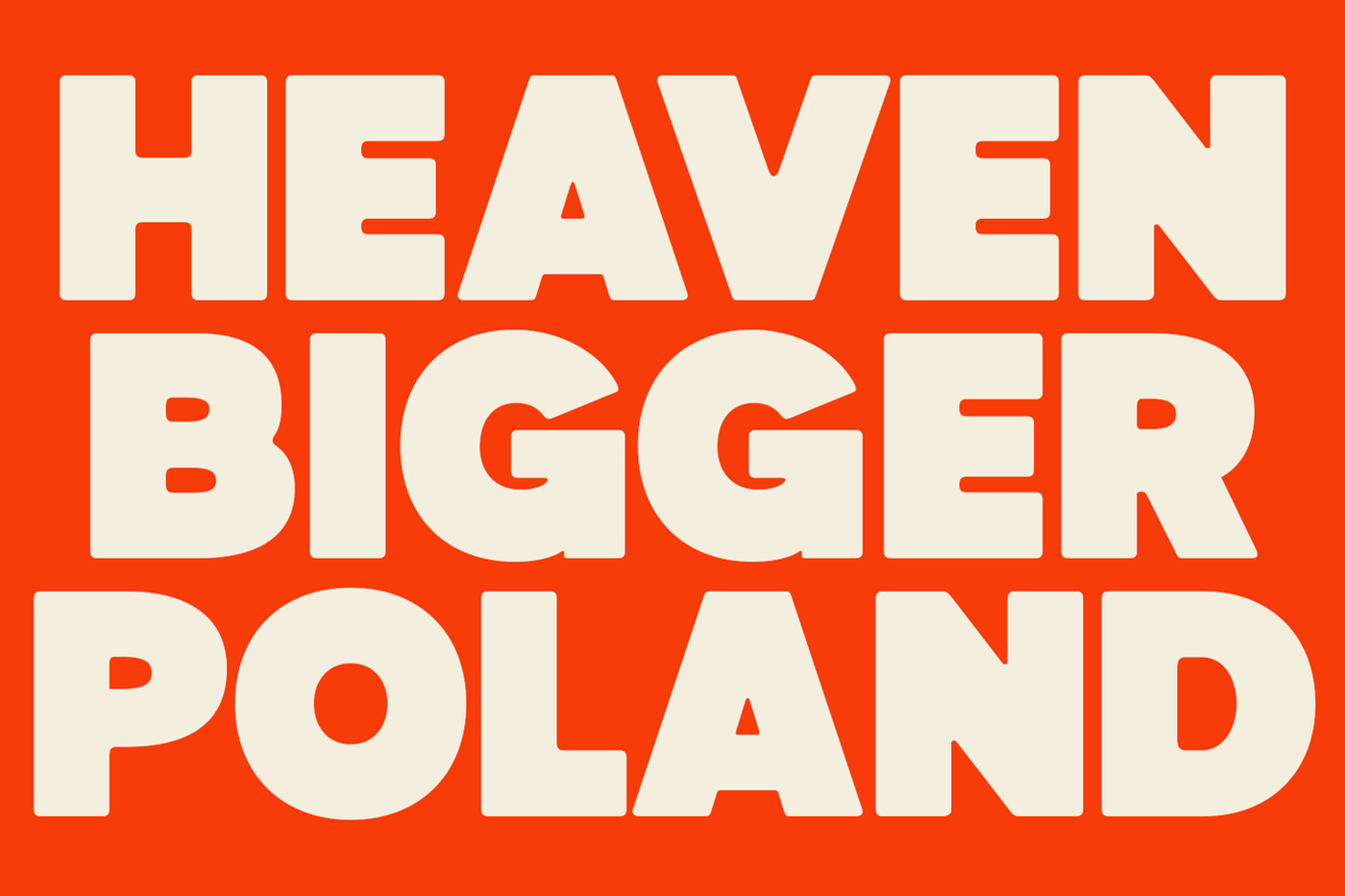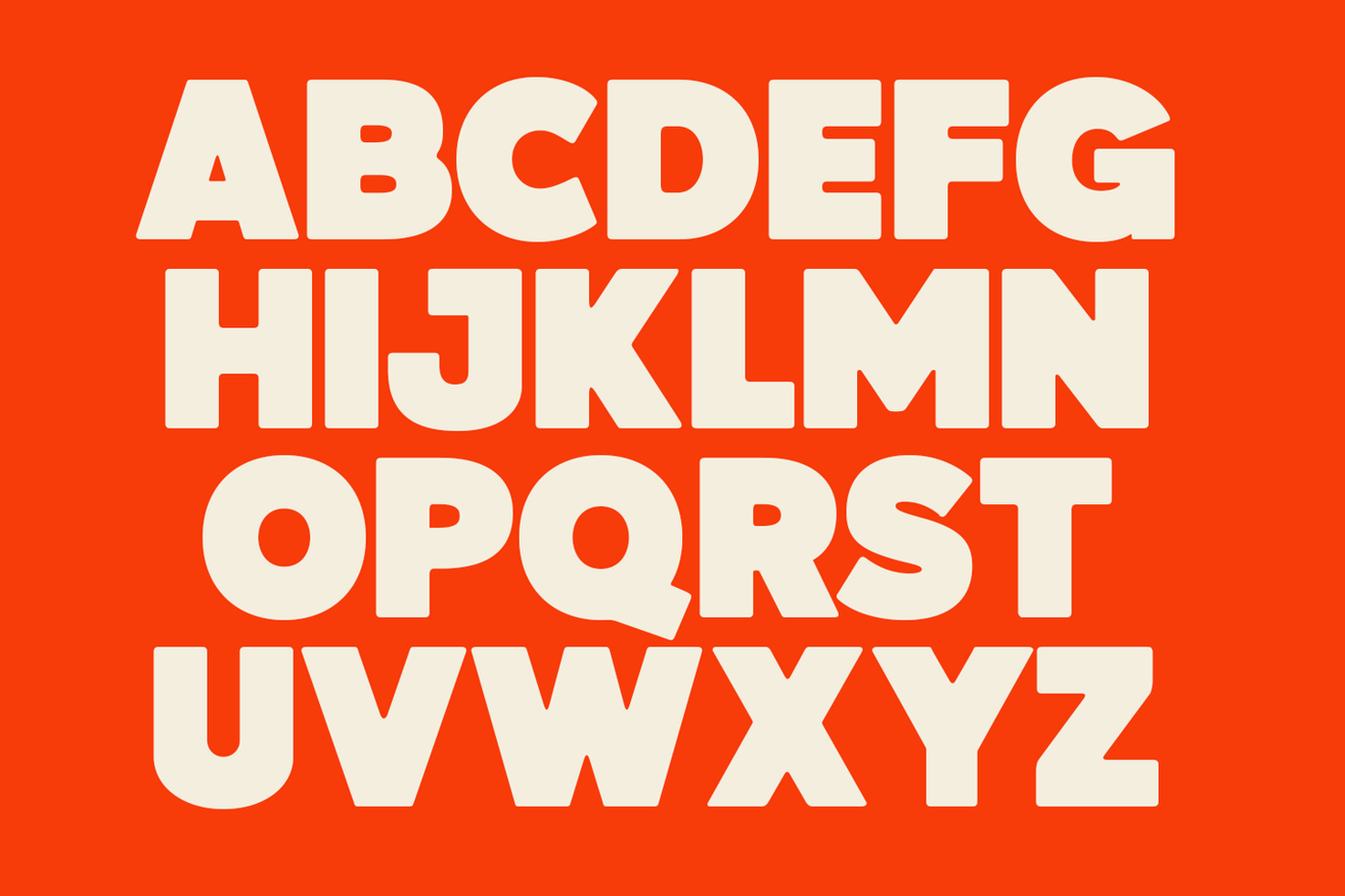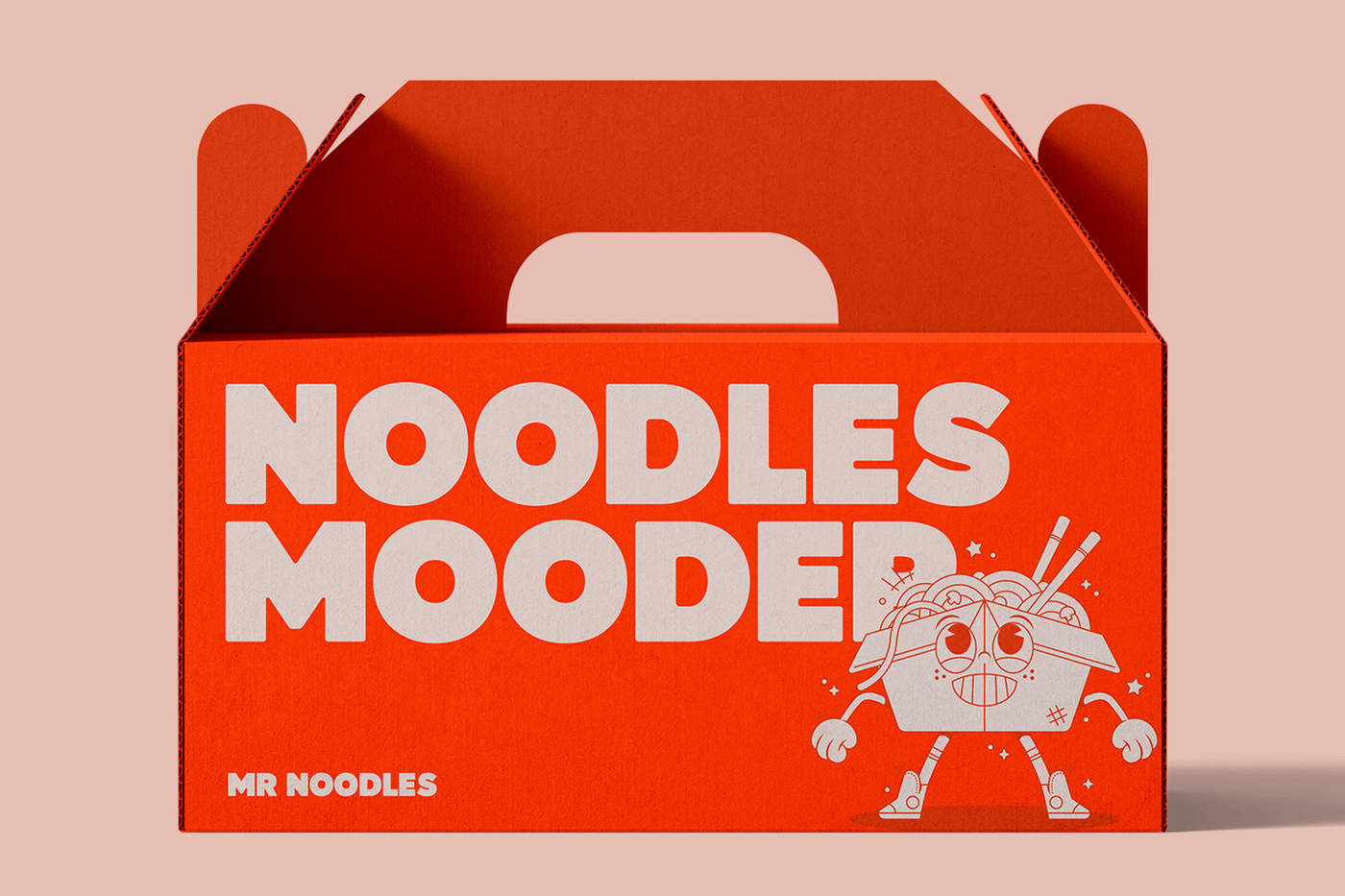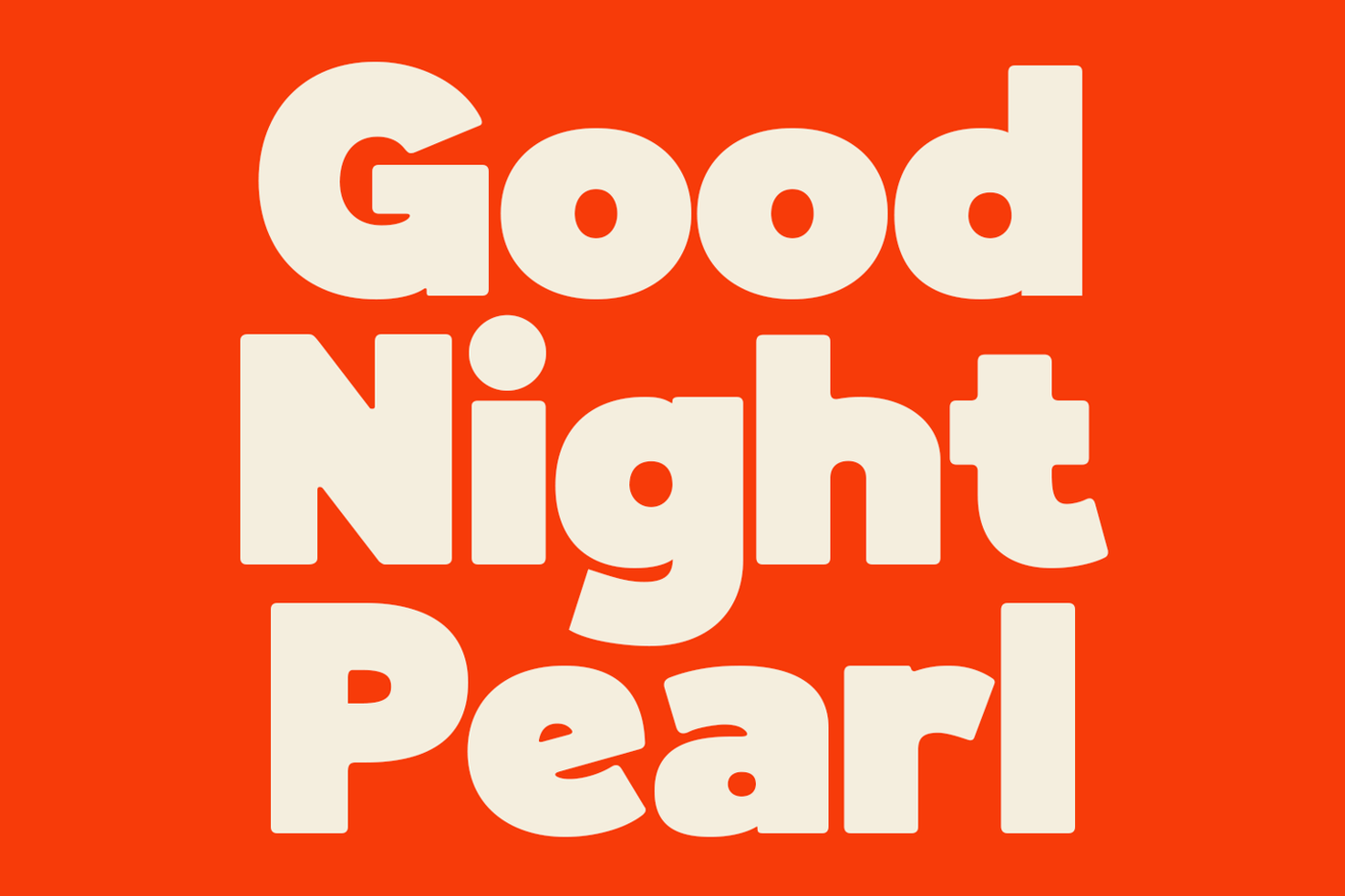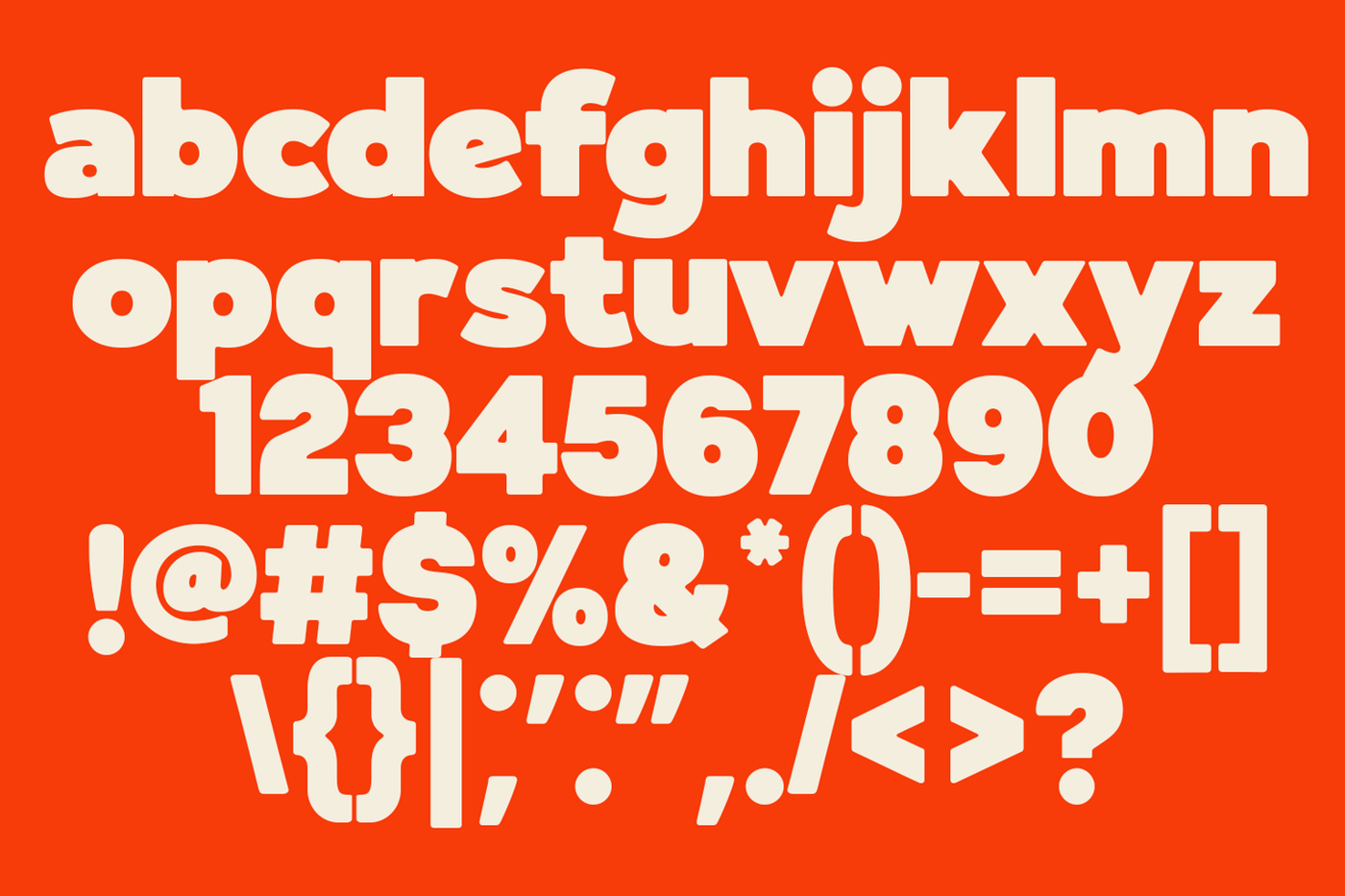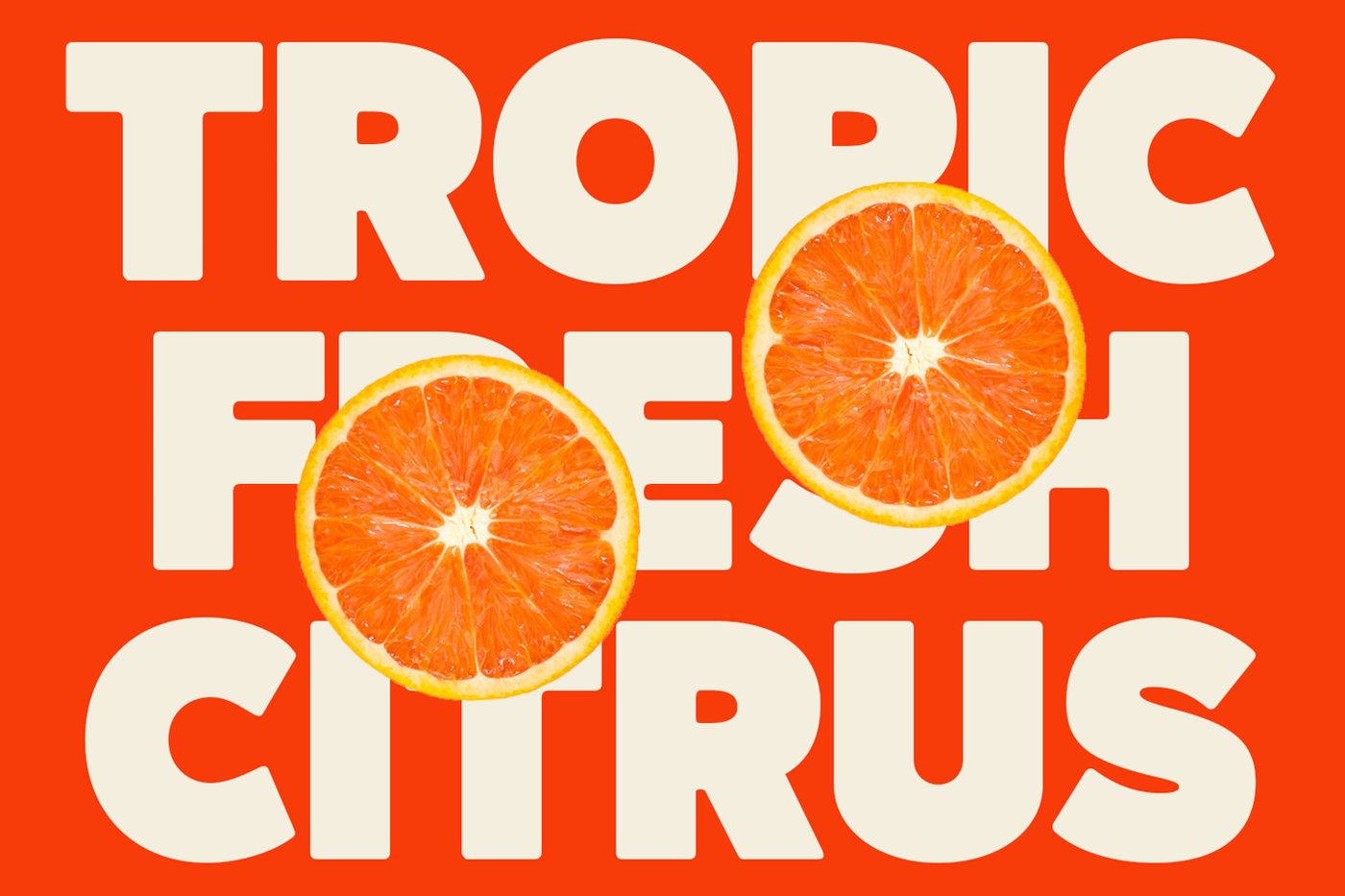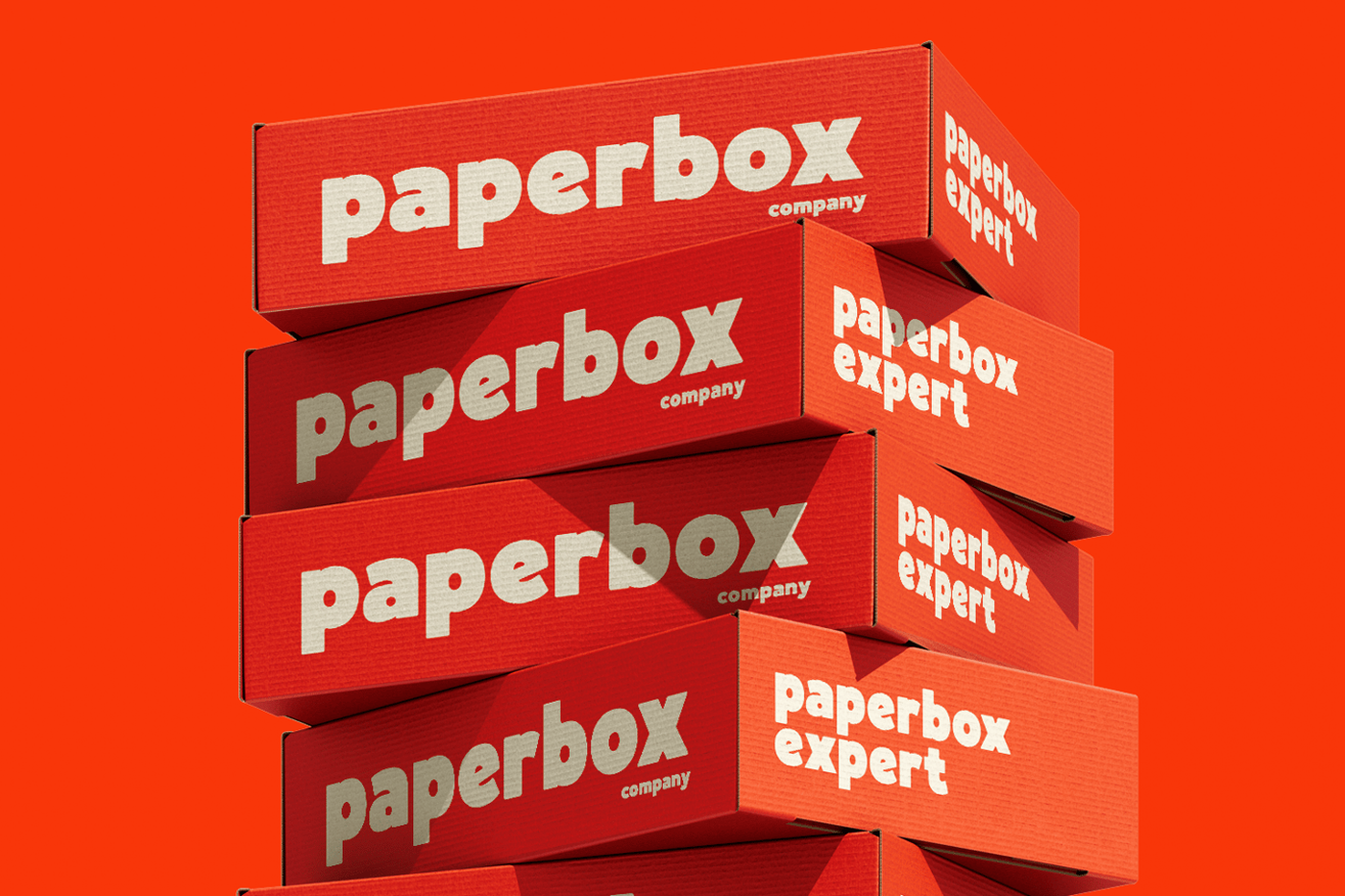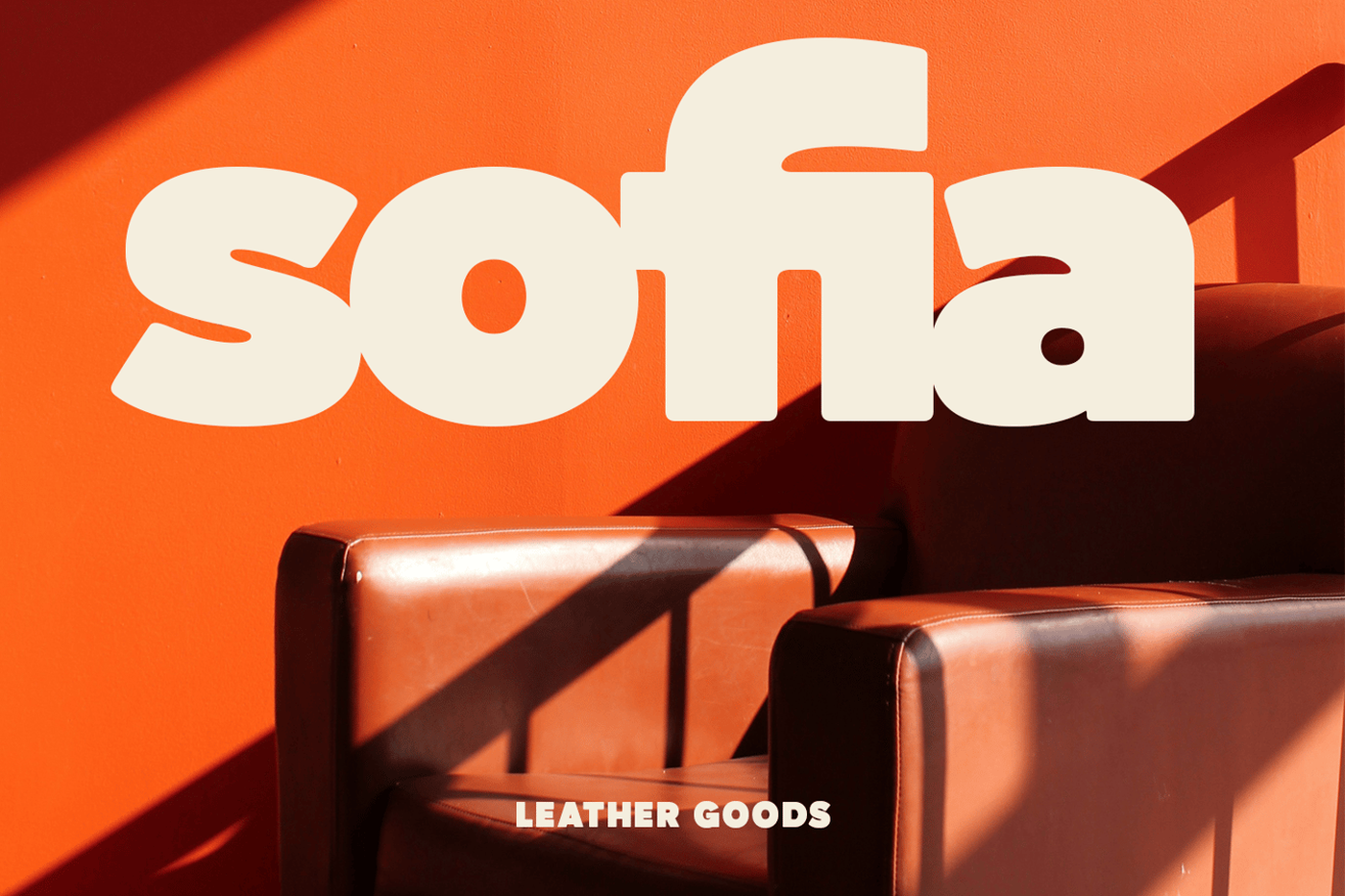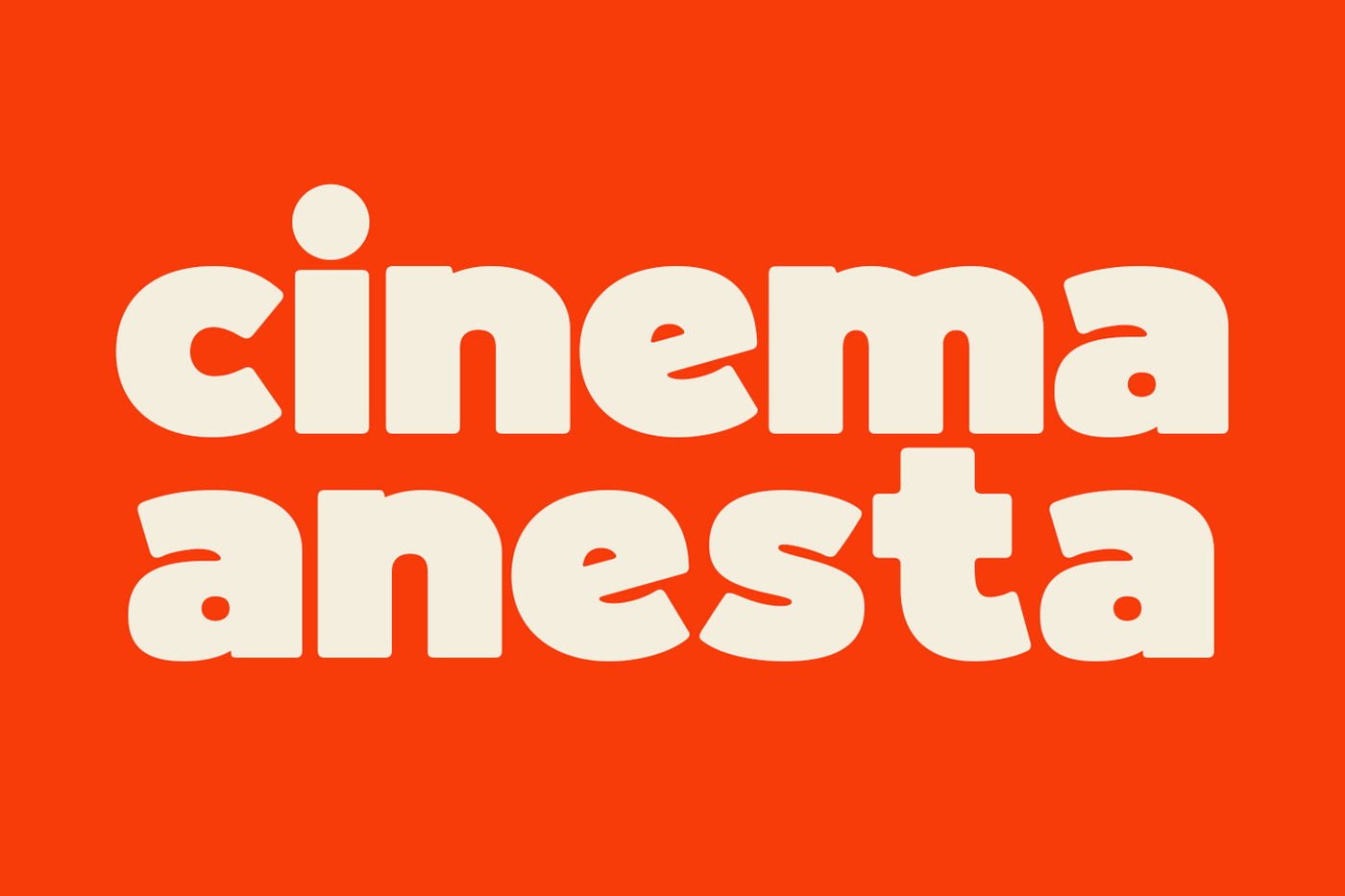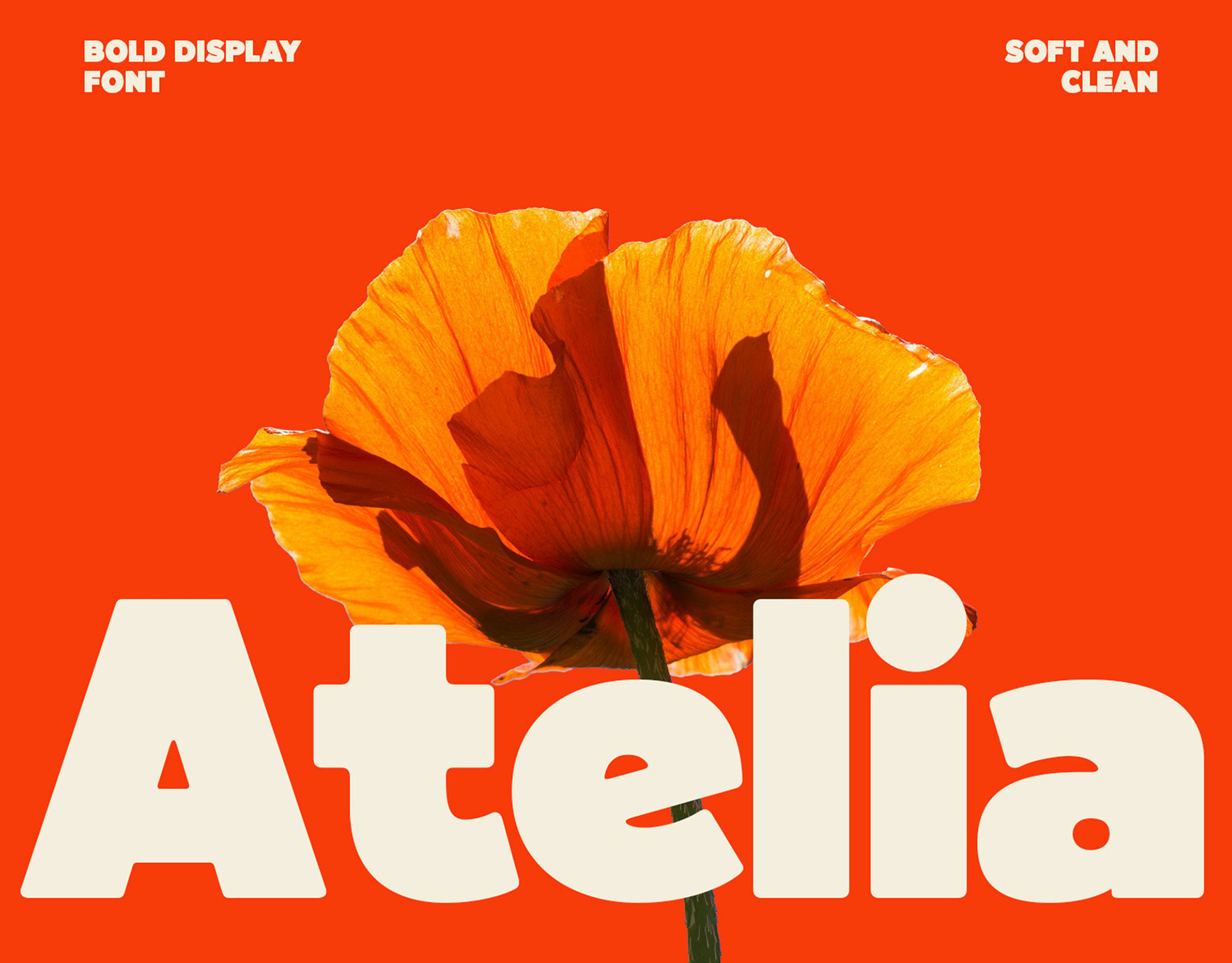
Atelia - Bold Display Font
Atelia is a soft and bold display font that combines a modern aesthetic with a friendly, approachable feel. Its thick, rounded strokes and smooth curves create a warm and inviting look, making it perfect for branding, packaging, posters, and eye-catching headlines. Designed for versatility, Atelia brings a playful yet clean touch to any project, whether you're going for a retro-inspired vibe or a contemporary look. Its strong presence ensures readability while maintaining a fun and stylish personality.